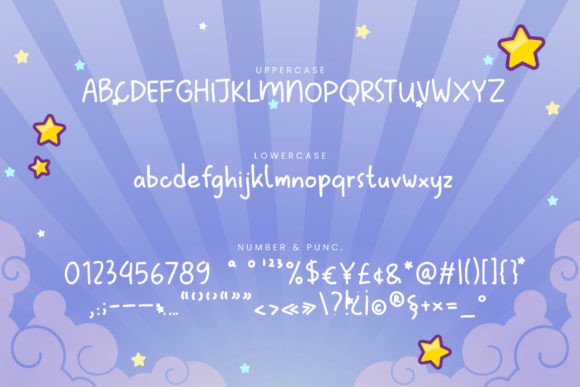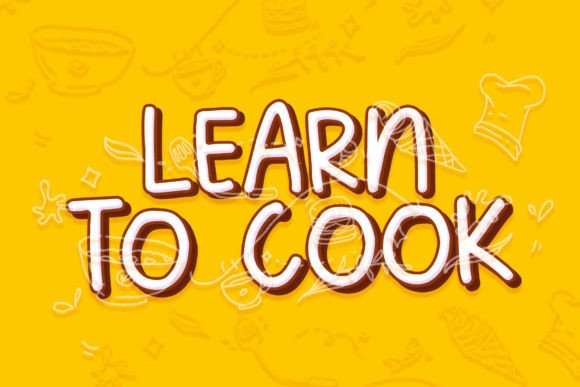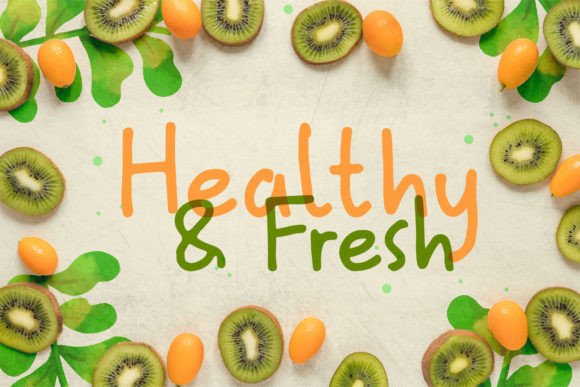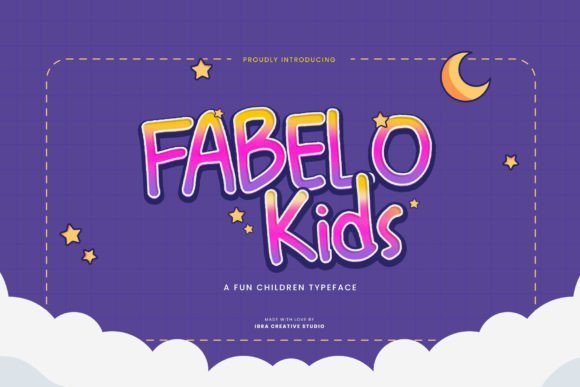
Introduction to Fabelo Kids Font
Fabelo Kids is a delightful and playful children’s typeface that sparks imagination and brings joy to any design.
With its whimsical letterforms and charming details, Fabelo Kids captures the essence of childhood wonder and innocence Each letter has a friendly and inviting nature, inviting young readers on a journey of discovery.